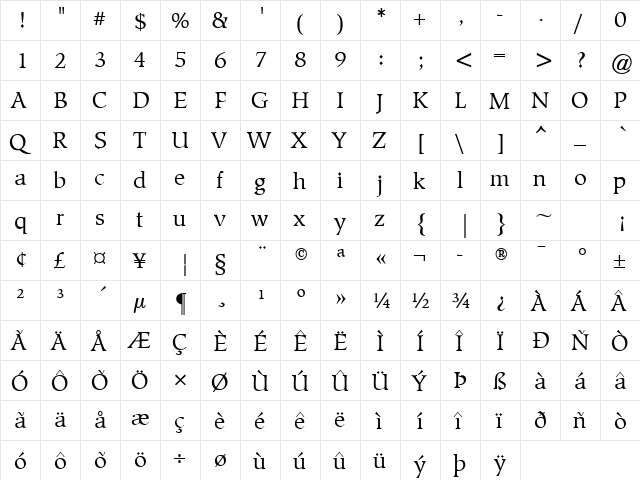
Sorrow 1 Regular Font Preview
Sorrow 1 Regular
Design Context for Sorrow 1 Typeface
Sorrow 1 is a composed and adaptable typeface that performs quietly and consistently across a wide range of design contexts.